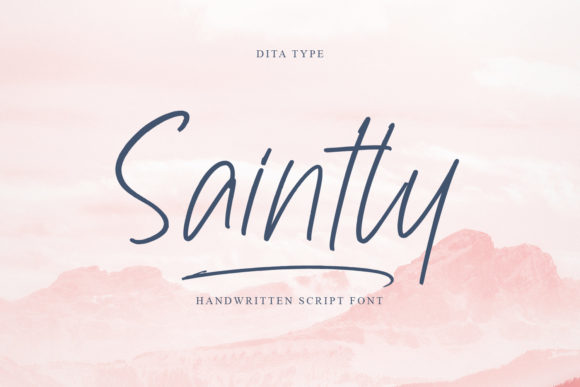
Introducing Saintly Font - The Quintessence of Elegance and Charm for Your Creative Journey
In the realm of typography, Saintly Font emerges as a radiant star, captivating hearts with its enchanting handwritten charm. This exquisite script font, crafted with meticulous artistry by the talented designers at Ditatype, possesses an irresistible allure that speaks to the soul. Its graceful curves, whimsical strokes, and natural flow evoke a sense of timeless elegance and effortless beauty.
As you embark on your creative journey, let Saintly Font be your trusted companion, guiding you through a world of limitless possibilities. Whether you're a seasoned designer or just starting out, this versatile font will elevate your projects to new heights of sophistication and charm.
Unleash Your Creativity with Saintly Font:
- Wedding Invitations: Transform your wedding invitations into masterpieces of heartfelt elegance. Saintly Font's delicate strokes and romantic aura will perfectly capture the essence of your special day, leaving a lasting impression on your guests.
- Stationary Art: Create exquisite stationary art that reflects your unique personality and style. From personalized letterheads to charming notecards, Saintly Font will add an air of sophistication to your written correspondence.
- Social Media Posts: Make your social media posts stand out from the crowd with Saintly Font's eye-catching allure. Its visually appealing design will captivate your audience, inviting them to engage with your content and discover your brand.
- Logos and Branding: Infuse your brand with a touch of timeless elegance by incorporating Saintly Font into your logo and branding materials. Its classic appeal will resonate with your customers, leaving a lasting impression that builds trust and loyalty.
- Personal Projects: Unleash your creativity and explore the endless possibilities of Saintly Font in your personal projects. From heartfelt letters to cherished scrapbook pages, this font will add a touch of magic to every word you write.
Why Choose Saintly Font?
- Timeless Beauty: Saintly Font transcends fleeting trends, embodying an enduring elegance that will remain captivating for years to come. Its classic design ensures that your creations will stand the test of time.
- Versatility: With its remarkable adaptability, Saintly Font seamlessly blends with various design styles, effortlessly enhancing any project you undertake. From traditional to contemporary, this font seamlessly complements your creative vision.
- Emotional Appeal: Saintly Font possesses an inherent emotional charm that resonates with audiences. Its delicate strokes and graceful curves evoke feelings of warmth, nostalgia, and romance, creating a profound connection between your message and your readers.
Saintly Font is more than just a font; it's an invitation to embark on a creative journey filled with beauty, elegance, and endless possibilities. Its enchanting charm will captivate your audience, leaving a lasting impression that lingers in their hearts.